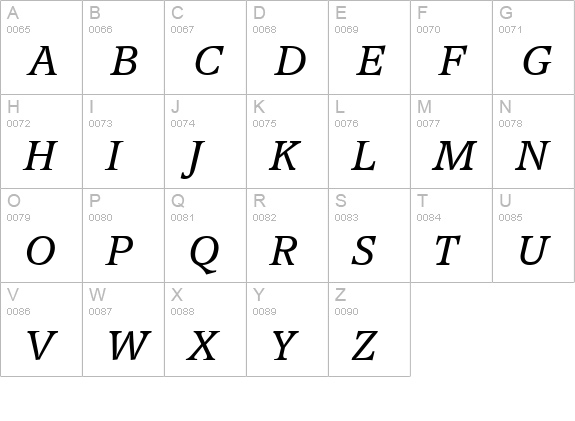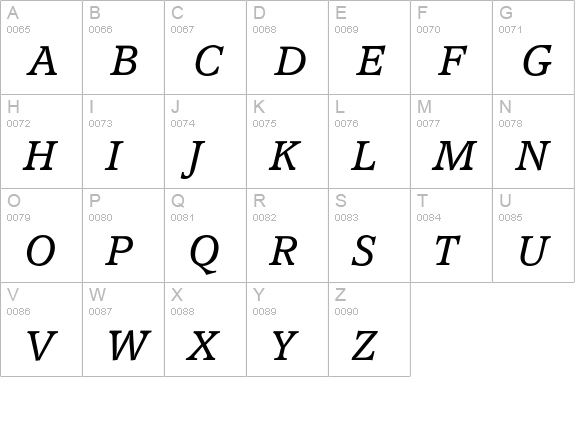
Accord SF Italic Font Details
Accord SF Italic is a distinctive, italic variant in the Accord typeface family \xE2\x80\x94 well suited to design and typography projects.
Accord SF Italic font is a sleek and modern typeface that exudes sophistication and style. Its italicized design adds a touch of elegance to any project, making it perfect for use in branding, advertising, and editorial design. The smooth curves and clean lines of Accord SF Italic create a polished and professional look that is sure to impress. The best part? Accord SF Italic is completely free to download at FontsMarket.com. This means you can enhance your designs with this beautiful font without breaking the bank. Whether you're working on a website, a poster, or a logo, Accord SF Italic will elevate your work to the next level. Don't miss out on this amazing opportunity to enhance your design projects with this stunning font – download Accord SF Italic today for free at FontsMarket.com!